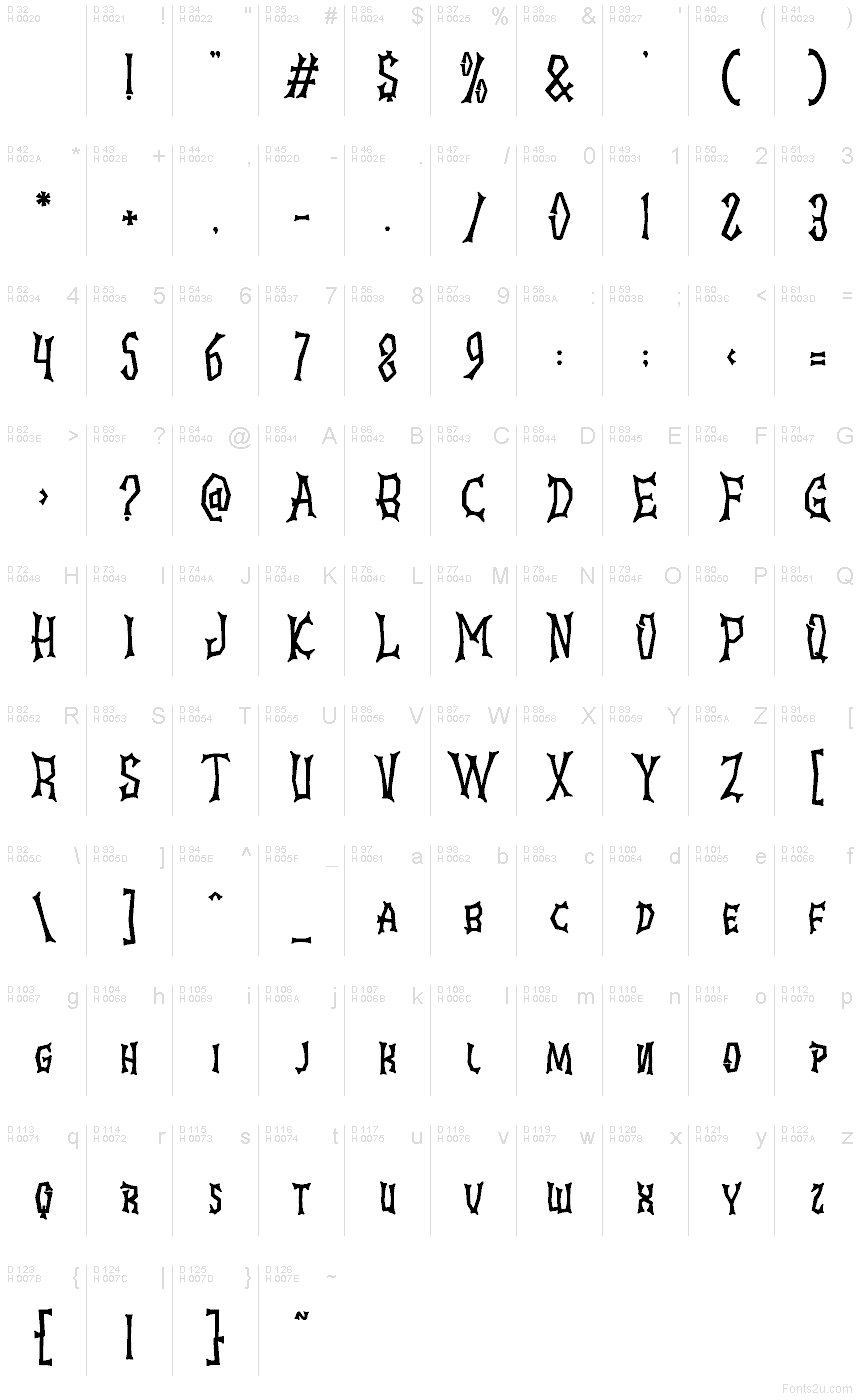
Ghostly Guffaws
Ghostly Guffaws font by PutraCetol Studio is a free Halloween display font. Its jagged, thorny silhouettes and crooked rhythm feel like a grinning blackletter brought back from the grave—inky, scratchy, and just unruly enough to read as playful rather than grim. The strokes flare into hooked tails and taper into splinters, giving headlines a deliciously campy chill.
Using Ghostly Guffaws, you can light up haunted house posters, party invites, trick‑or‑treat bags, seasonal menus, social promo graphics, stickers, and YouTube thumbnails. This free font thrives at large sizes with a touch of extra letterspacing for breath. Pair it with a clean, neutral sans to keep details readable and let the spooky texture take center stage.